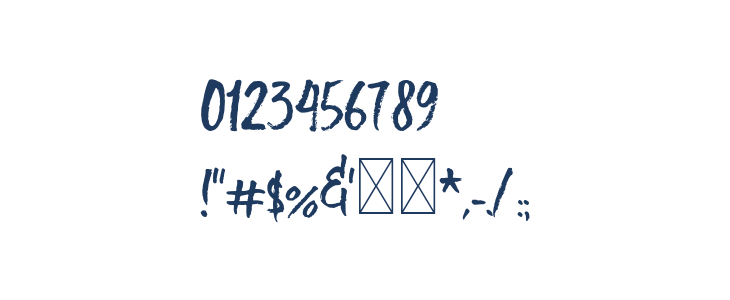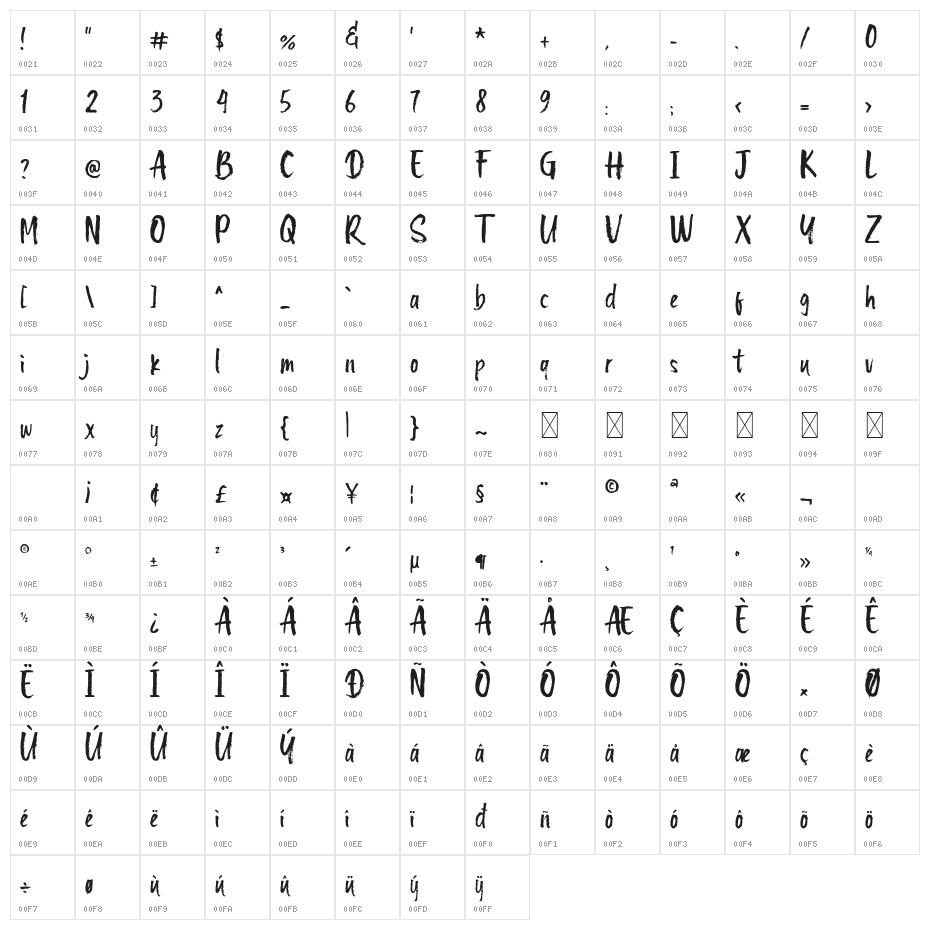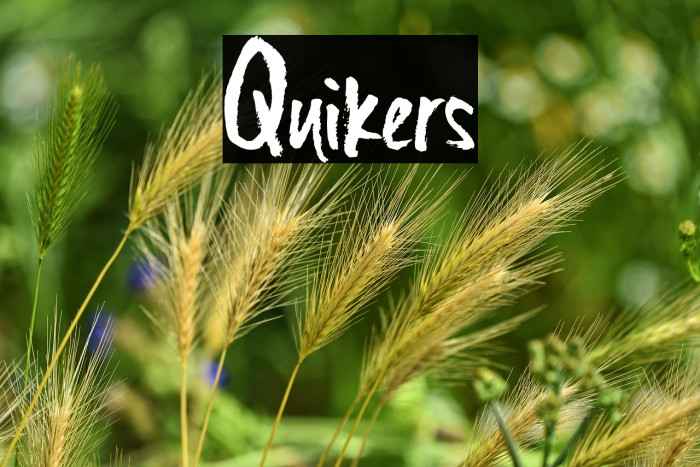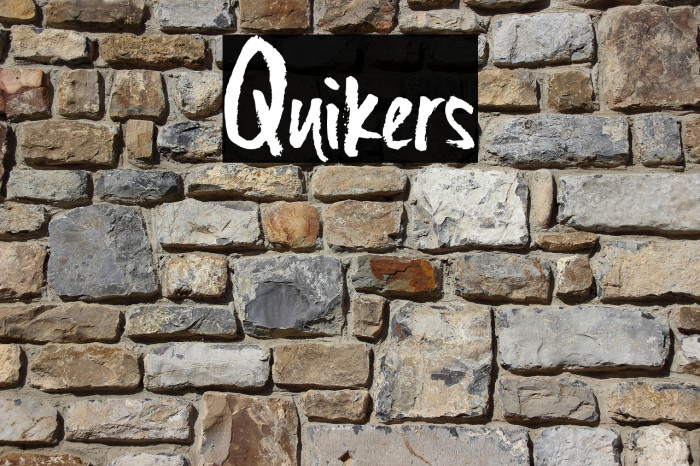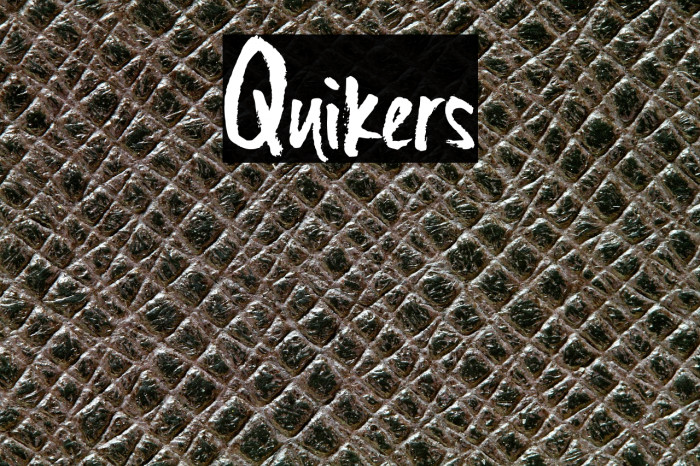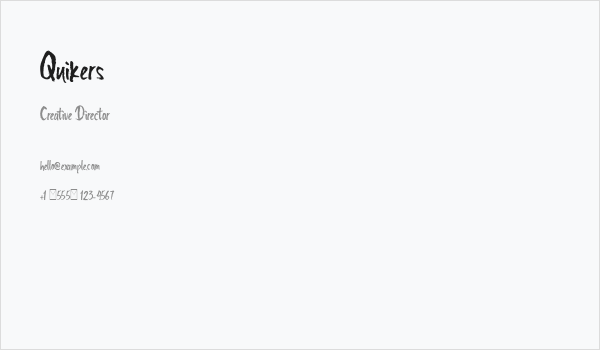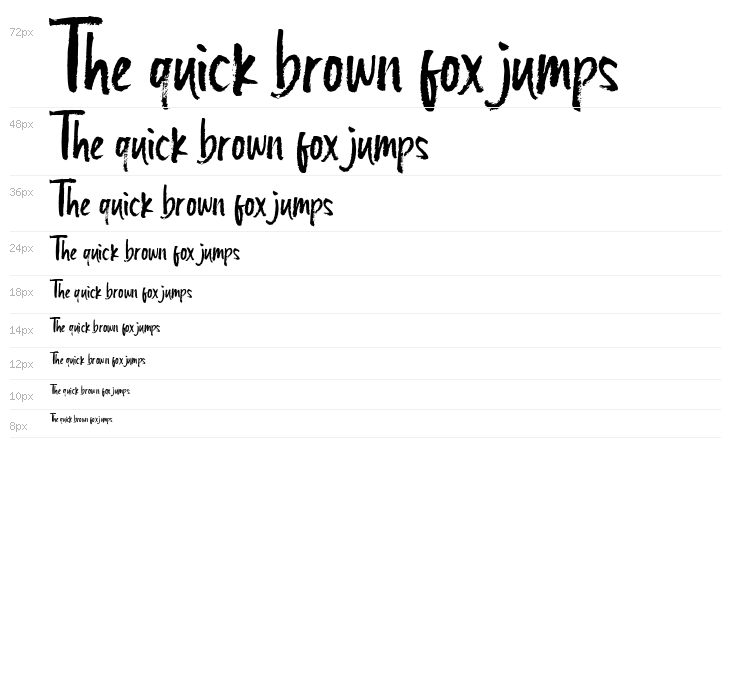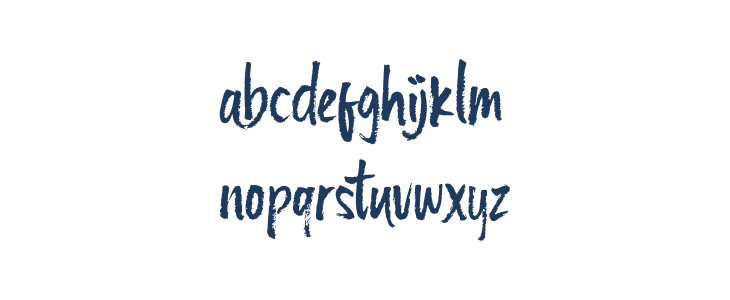
Quikers Font
Quikers Description
This font exudes a bold, energetic style with a hand-painted appearance. The brush-like strokes give it a raw and dynamic feel, making it ideal for designs that require a personal touch. The uppercase letters are tall and assertive, while the lowercase letters maintain a consistent flow, enhancing readability. Numbers and special characters follow the same expressive style, adding to the font's versatility. The overall texture is slightly rough, which contributes to its handcrafted aesthetic, perfect for projects that aim to convey creativity and spontaneity.
| Proposed Projects | Ideal for posters, branding, packaging, and any creative projects needing a bold, artistic touch. |